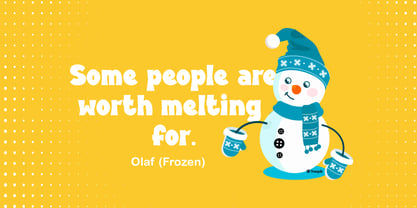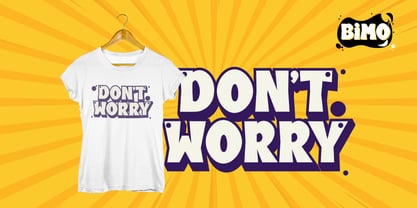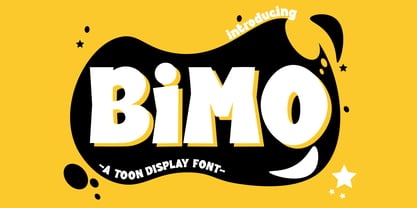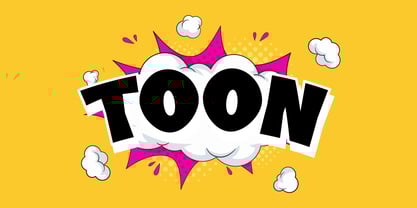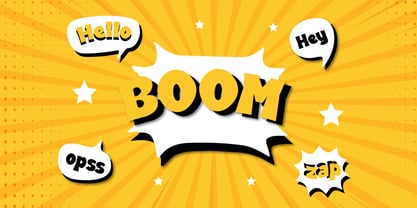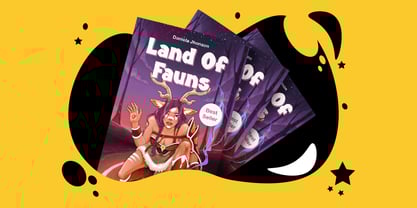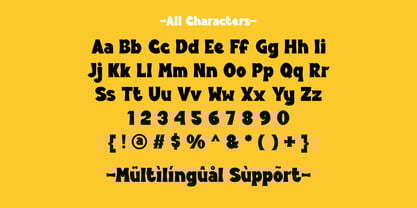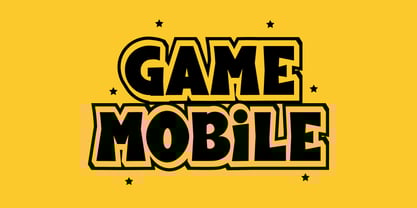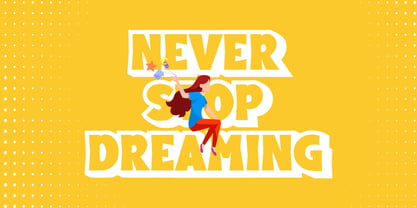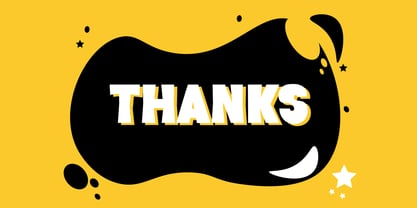
Bimo Toon
The Bimo Toon Font Family was designed by Gugun Gunawan and published by Patlot Digital Studio. Bimo Toon contains 1 styles. More about this family
Introducing Bimo Toon, a unique cartoon-style display font that exudes charm and playfulness. Its authoritative characters, combined with its captivating aesthetic, seem destined to elevate your design creations to a new level. Dive into your next creative endeavor with Bimo Toon and revel in its transformational power. Meanwhile, the playful Bimo Toon is your best friend for enhancing funny memes or crafting engaging comic titles. Complete your superhero costume with this charming typeface or sprinkle it on your social media quotes for an extra touch of brilliance. Bimo Toon pushes the boundaries of playfulness and originality online, ensuring your work always gets the spotlight it deserves. From witty humor to unforgettable slogans, let Bimo Toon bring your creativity to life.
Patlot Digital Studio was founded in 2022 and is managed by Gugun Gunawan. I love drawing letters. I want to continue developing my creativity and using my passion to provide greater benefits for myself and the design community. I founded Patlot Digital Studio to help designers choose their projects. I create handwritten fonts, script fonts, and display fonts. Now I pursue my new passion full-time from my home studio.